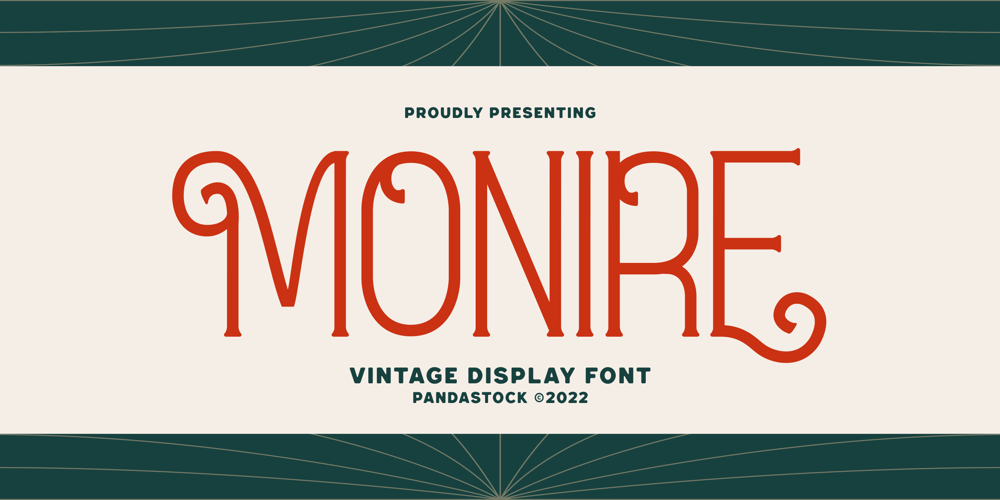
Monire Font Family was designed by Aulia Savira Putri and published by Pandastock. Monire contains 1 styles and family package options. Monire is a modern typeface with visual elegance, smooth curves, and beautiful ligatures clear, making your work look true and attractive.A very versatile font that works in both large and small sizes. This font is suitable for a wide variety of projects such as invitations, logos, branding, magazine, photography, card, product packaging, mugs, quotes, poster, labels, signatures, and more.Font which is perfect for all business